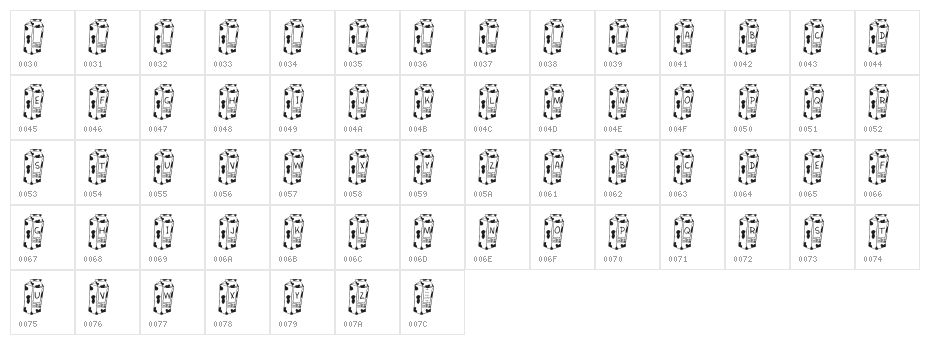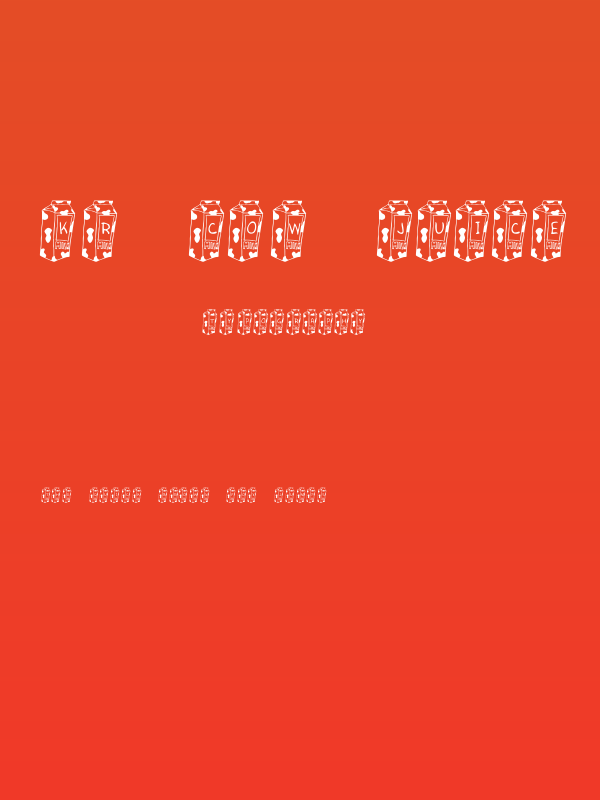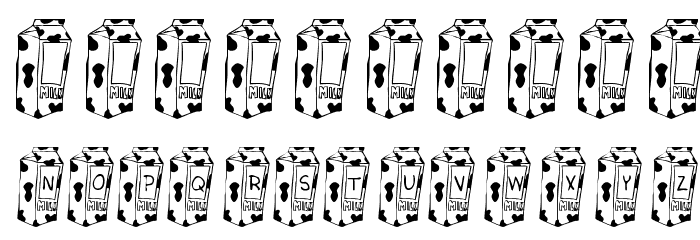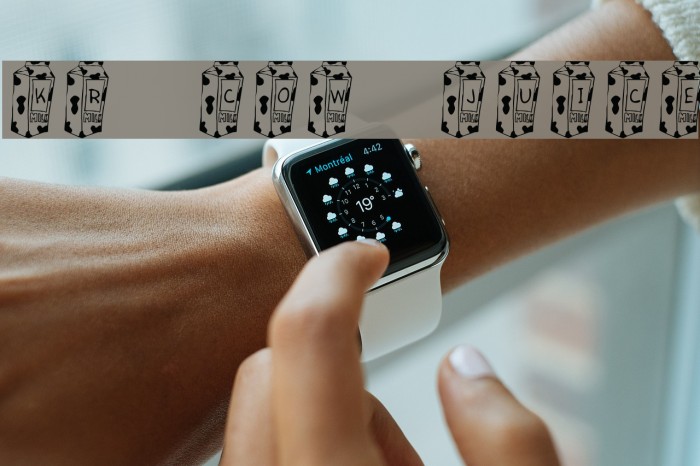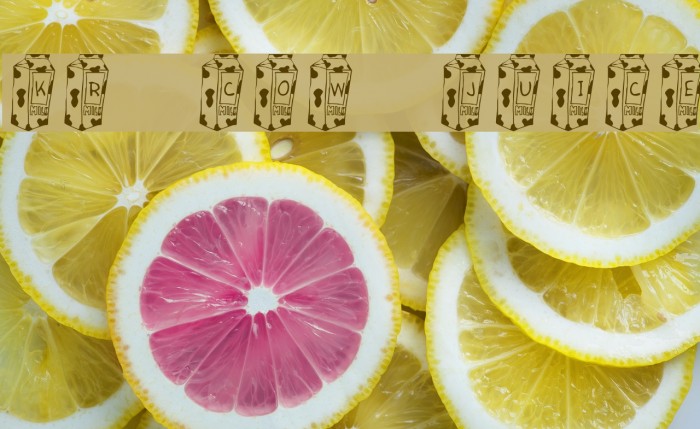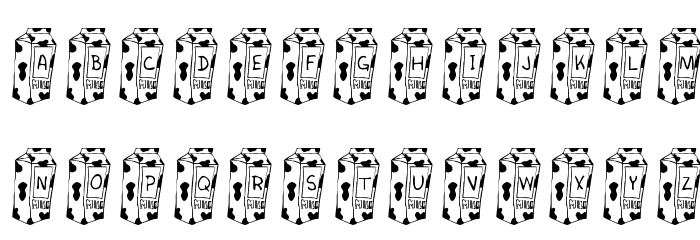
KR Cow Juice Font
KR Cow Juice Description
This playful and whimsical font features letters enclosed within cartoonish milk cartons, each with a distinct black and white cow pattern. The design is highly decorative, with each character having a unique three-dimensional appearance that gives it a fun and lively feel. The font is perfect for projects that require a touch of humor and creativity, such as children's books, playful branding, or themed events. The characters are bold and easily recognizable, making them suitable for eye-catching headlines or logos. The overall style is quirky and imaginative, capturing the essence of fun and lightheartedness.
| Proposed Projects | Children's books, playful branding, themed events, eye-catching headlines, logos. |